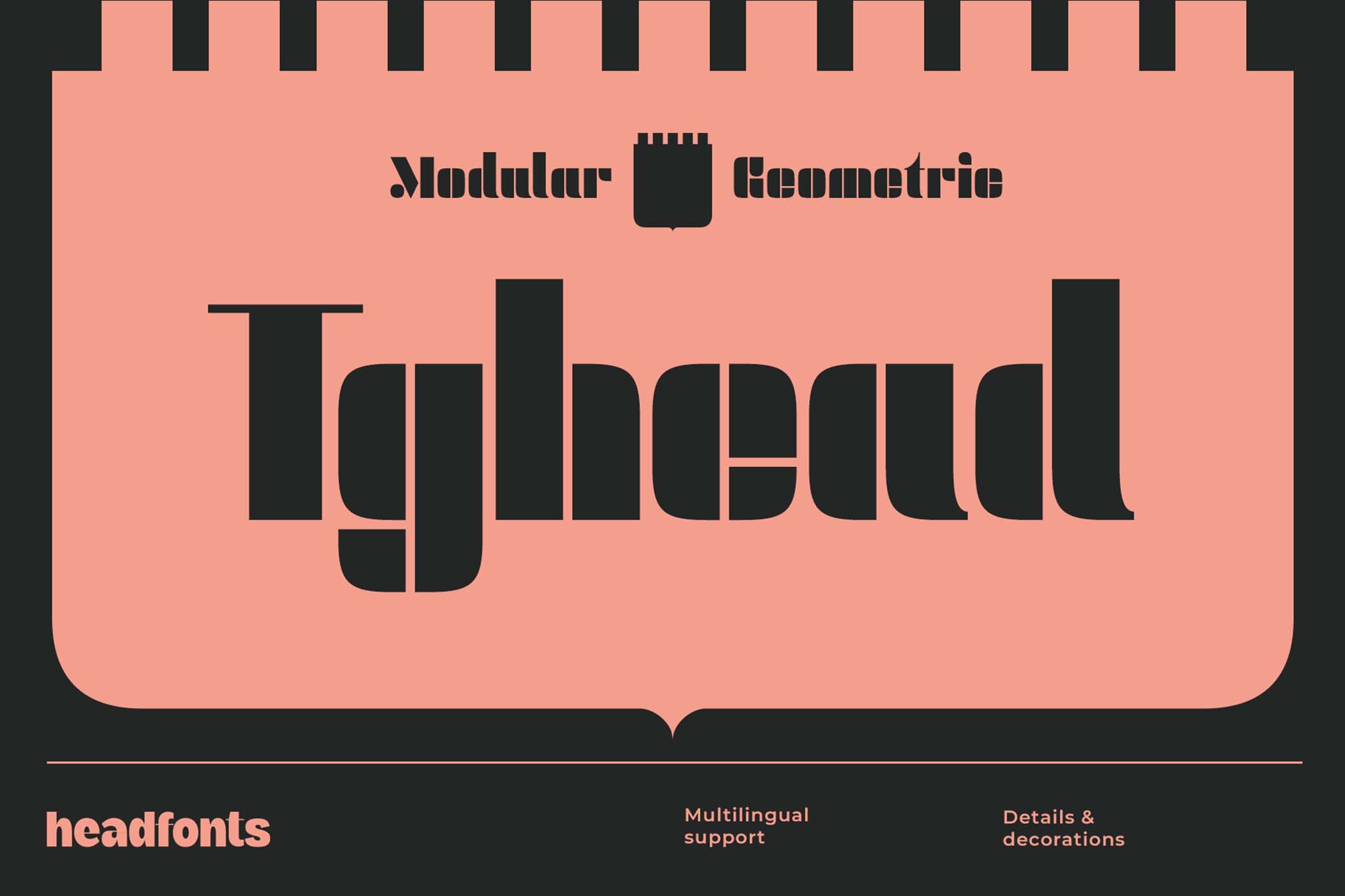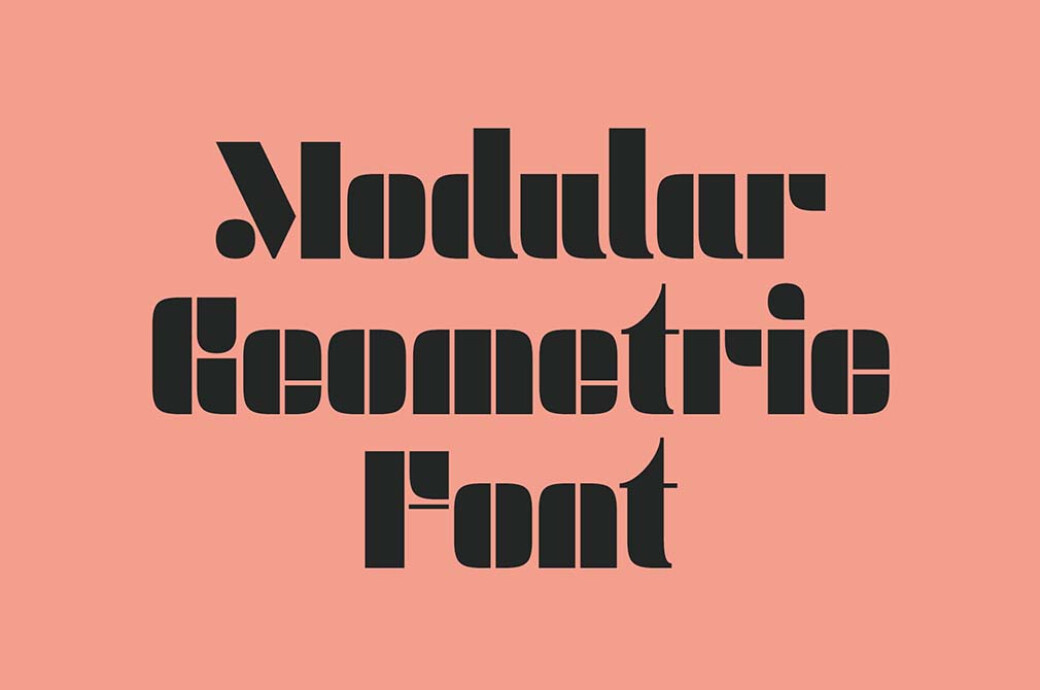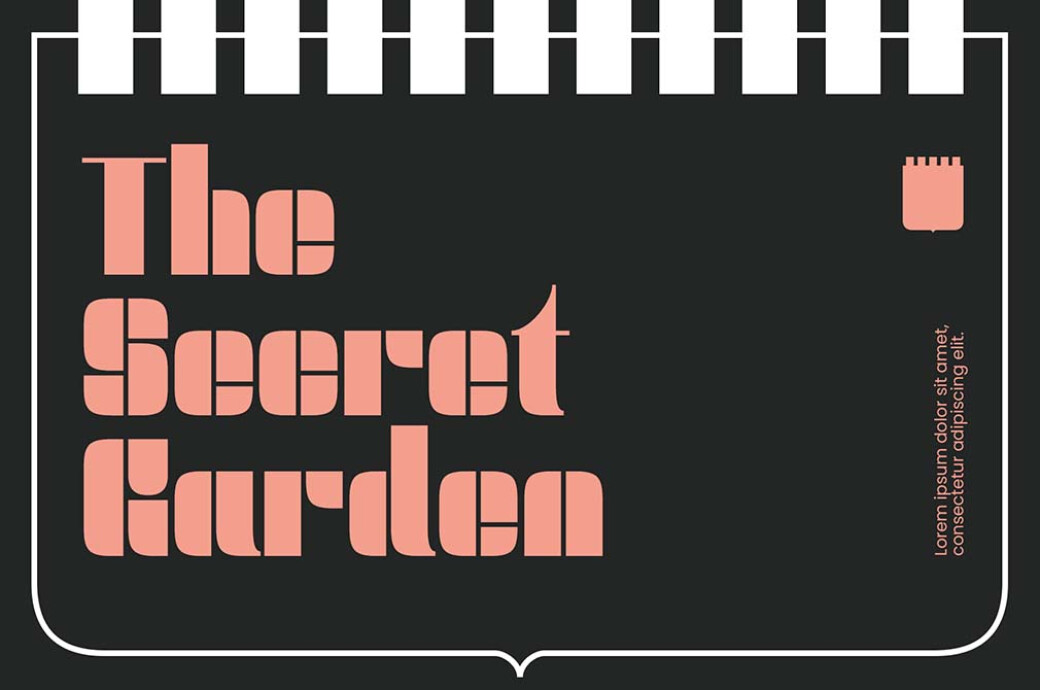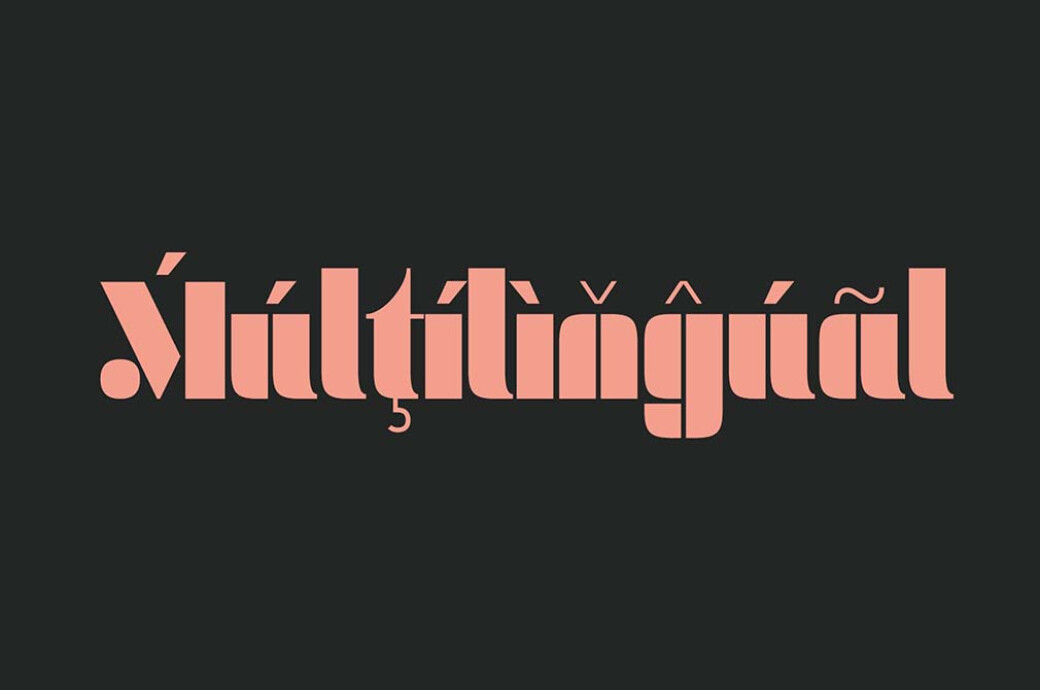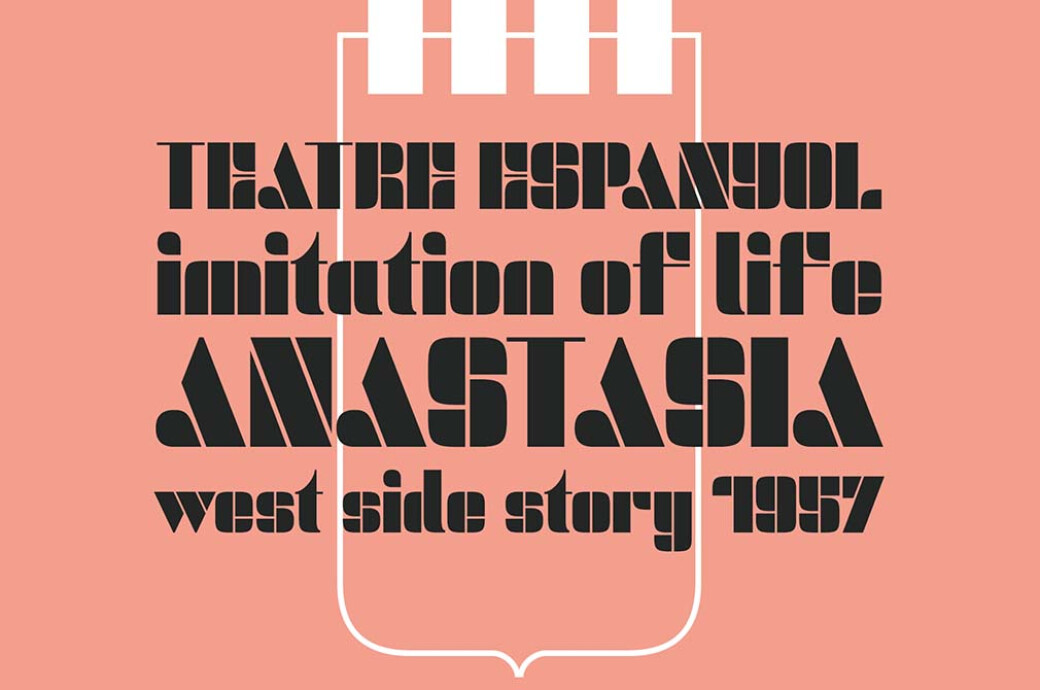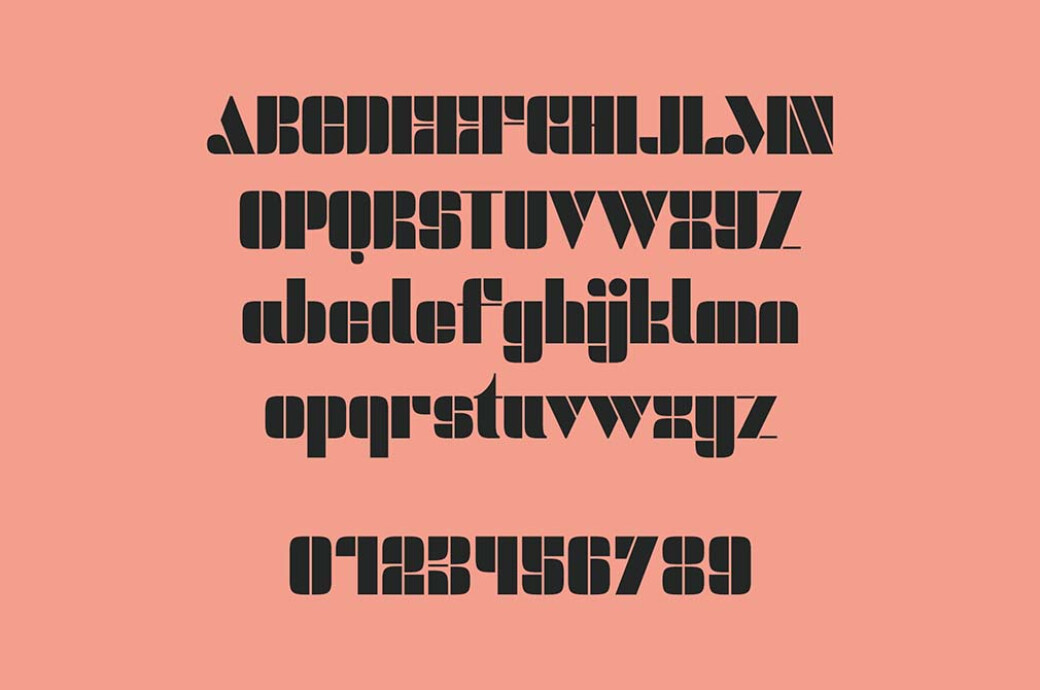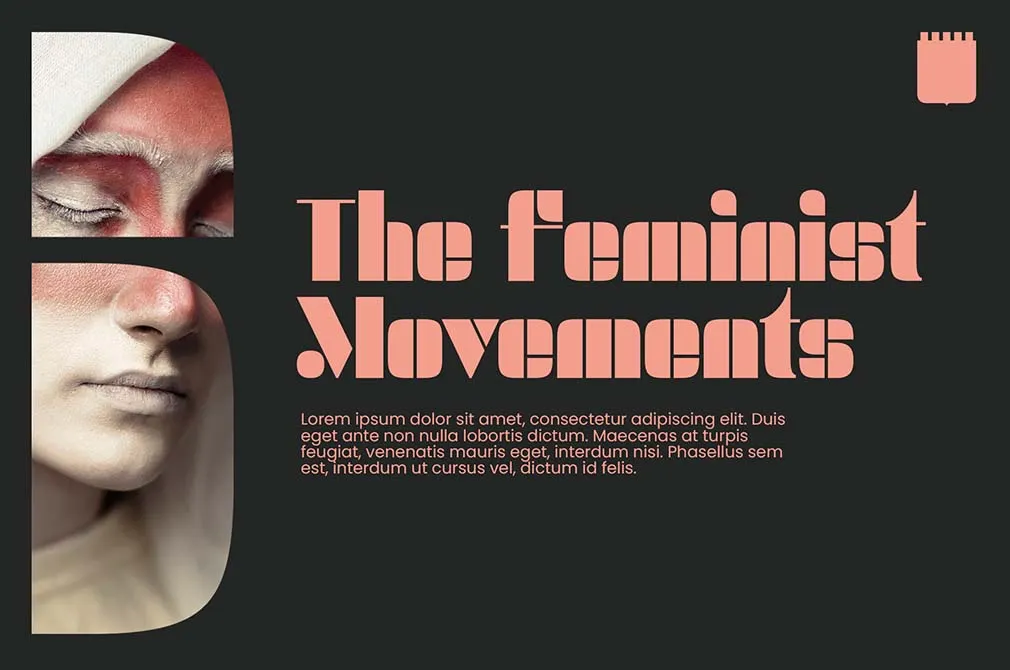
Tghead Geometric Font
Crafting impactful designs requires a strong foundation, and this powerful font serves as that bedrock for creatives.The TGHead Font is a harmonious blend of strong, bold strokes and the precision of geometric forms. It offers an intriguing play of symmetry and balance, allowing your designs to stand out with a unique, compelling edge. This type provides extensive Latin script language support, opening up a world of opportunities for international designers and projects. The availability of both upper and lower uppercase characters provides a level of versatility that adds complexity to your design endeavors. Whether your project calls for the quiet strength of minimalism or the loud celebration of bold design, the TGHead is an adaptable and reliable choice. It encapsulates the beautiful marriage of form and function, making it an indispensable tool for any creative's arsenal.